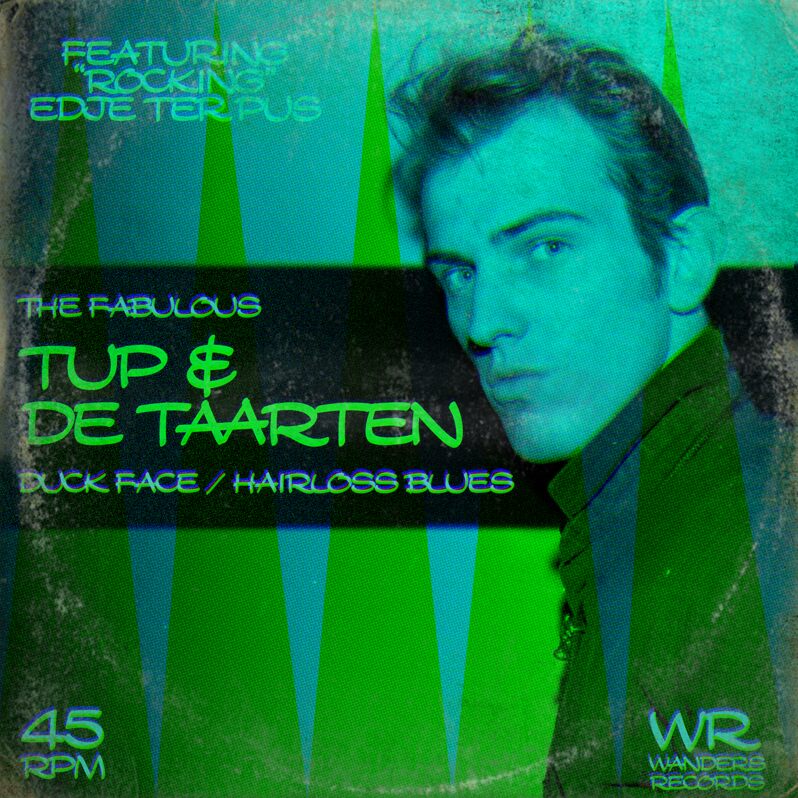
Wanders
Wanders, the creation of font designer Tup Wanders, is an enchanting handwritten font that adds a touch of elegance and personality to any project.
With its expanded width, this versatile typeface is perfect for creating eye-catching headlines and captivating logos. Its flowing strokes and unique letterforms make it suitable for a wide variety of projects, including wedding invitations, fashion magazines, food blogs, and beauty branding. Embrace the magical allure of Wanders as you bring your creative visions to life with this enchanting handwritten font.
This was my late father's handwriting, which I copied when I was in my teens. His version had more curls, a bit like Walt Disney's. I kind of cleaned it up. I used our surname as the name of the font because it's both our handwriting combined into one.
Here's hoping that people will use this font instead of my early font Snickles, which I've grown to hate :)
Nou lief dagboek, dit is geloof ik al het vierde font dat ik in nde afgelopen weken maakte. Het hondje is inmiddels terug naar m'n moeder, ik kan weer lekker uitslapen.
Deze letter komt van mijn vader, ik heb hem als puber van hem gekopieerd. Maar zijn versie was wel veel krulleriger, een beetje zoals Walt Disney. Als je D-A-N typt krijg je zijn krullerige D als ligatuur. Gewoon een doorsnee stripletter. Niks bijzonders verder.